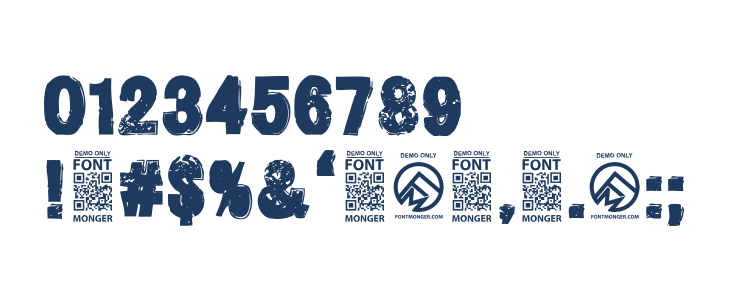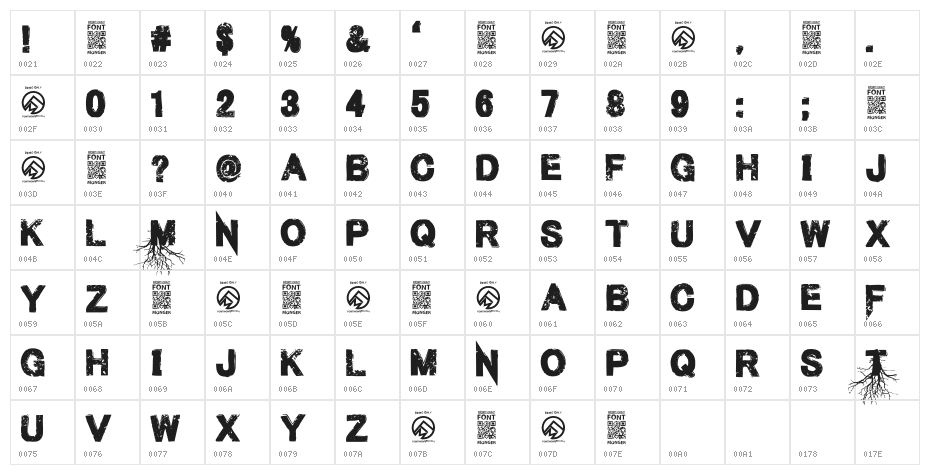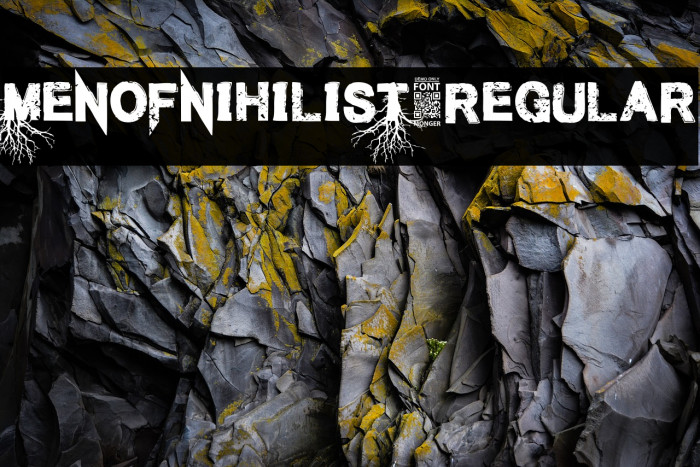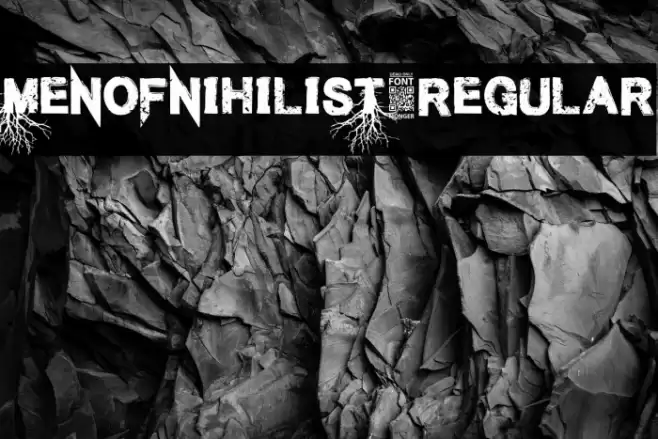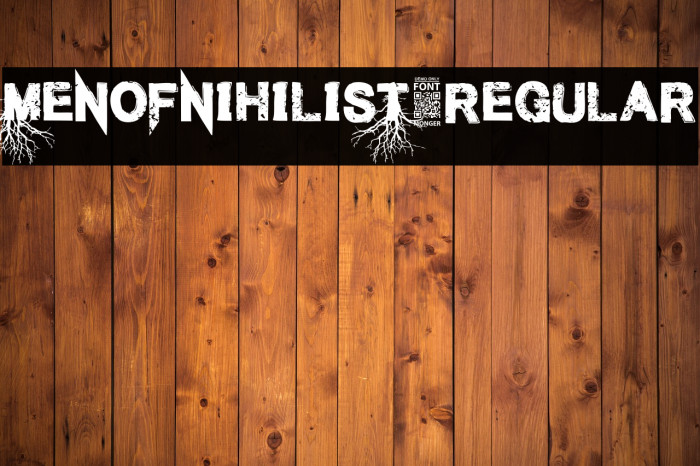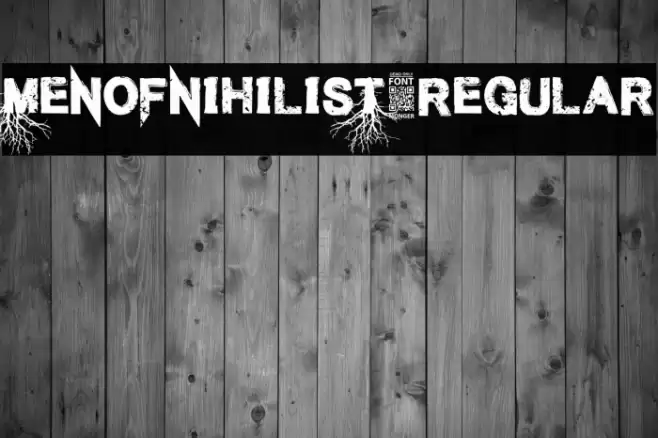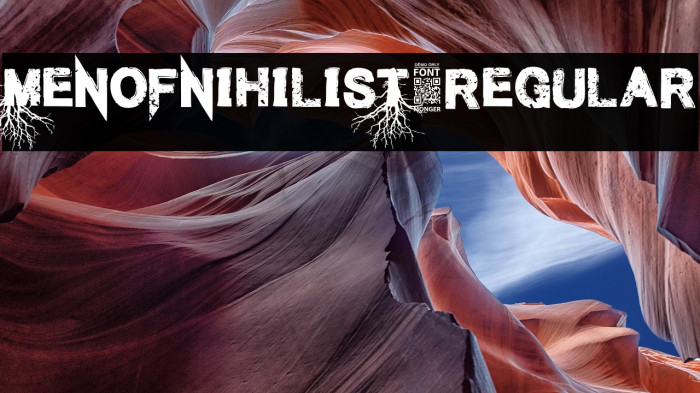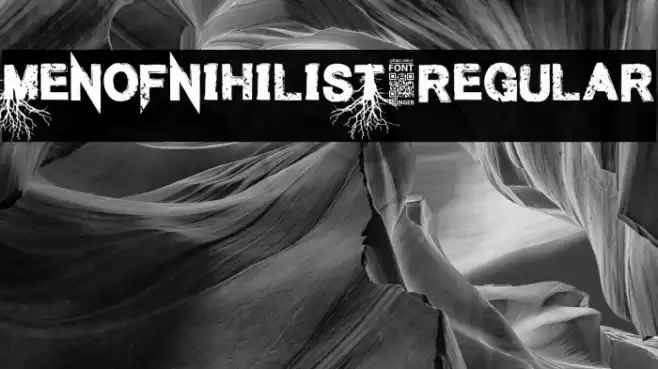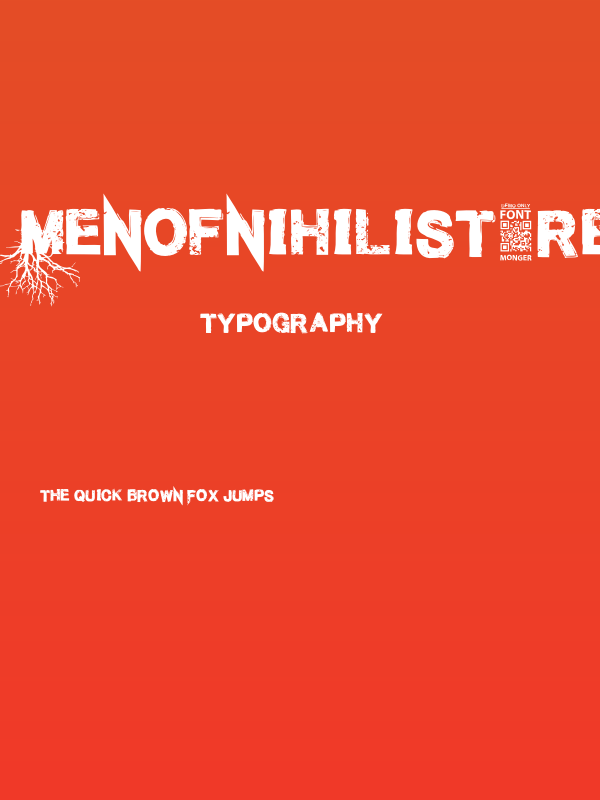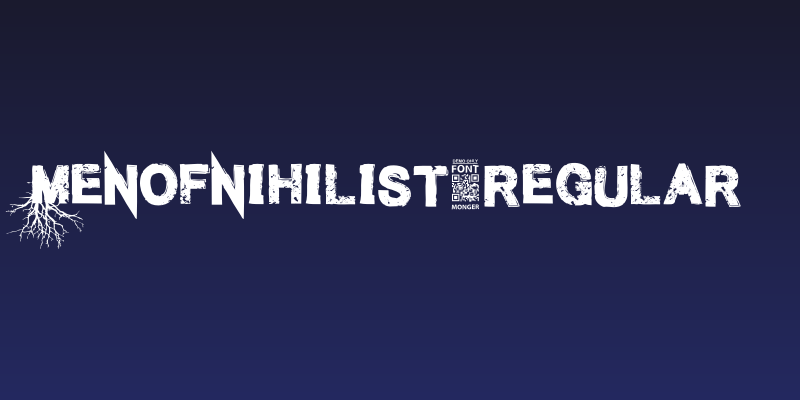
MenofNihilist-Regular Font
MenofNihilist-Regular Description
This font features a rugged, distressed appearance with a grunge texture that gives it a worn and weathered look. The characters are bold and impactful, with irregular edges and a rough surface that suggests erosion or decay. This style is reminiscent of urban graffiti or street art, making it ideal for projects that require an edgy, rebellious aesthetic. The uppercase and lowercase letters maintain a consistent style, while the numbers and special characters also carry the same distressed effect, ensuring a cohesive look across all text elements.
| Overall Style | Grunge, Urban |
| Proposed Projects | Ideal for music album covers, poster designs, streetwear branding, and any project seeking an urban, edgy vibe. |